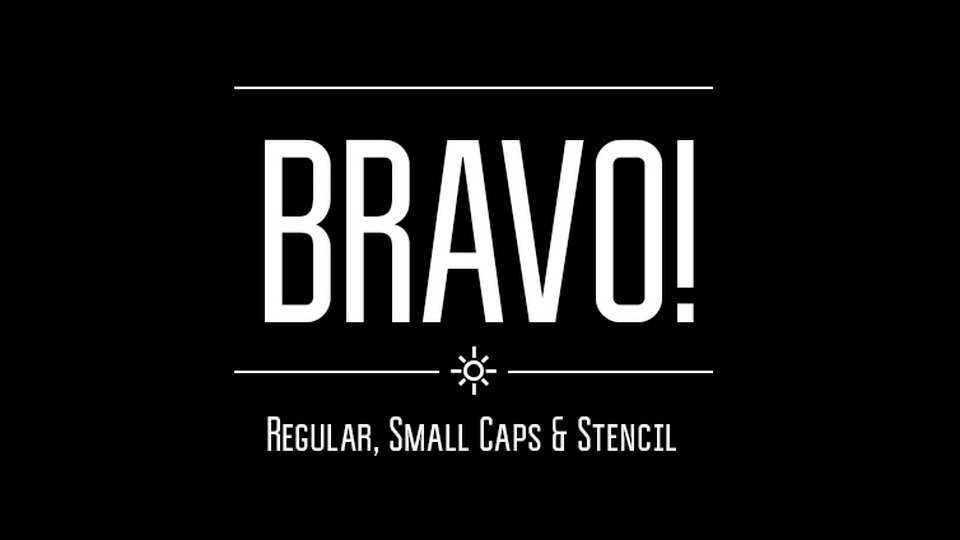
Download Bravo typeface, a narrow accidental grotesque font family, which includes 3 tracings: Normal, Small Caps and Screen. Bravo has a variety of alternate glyphs, alternates, ligatures help to make the text personality.